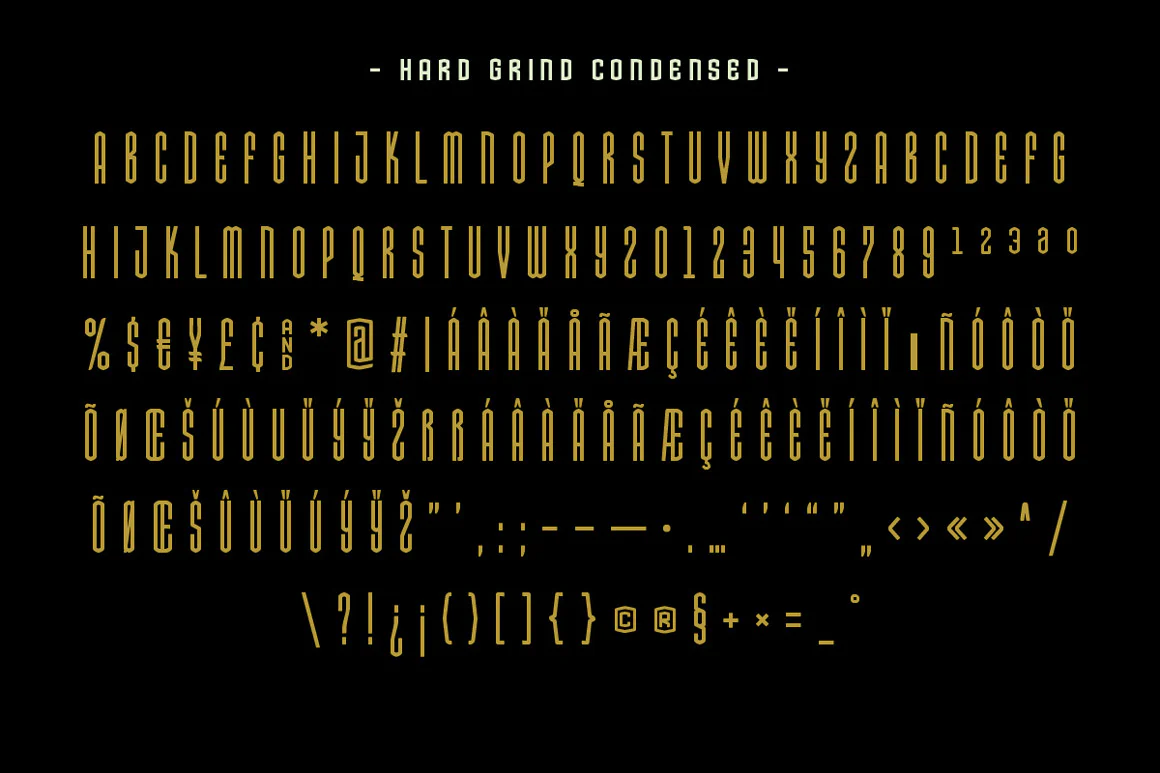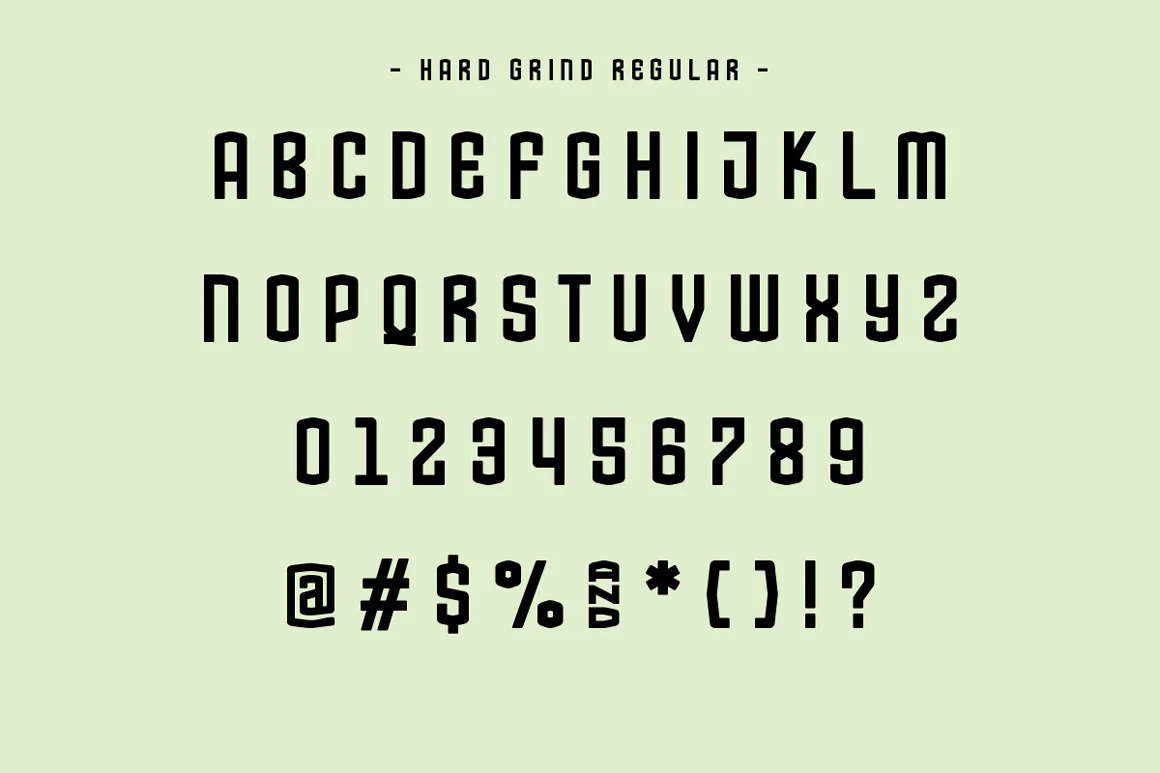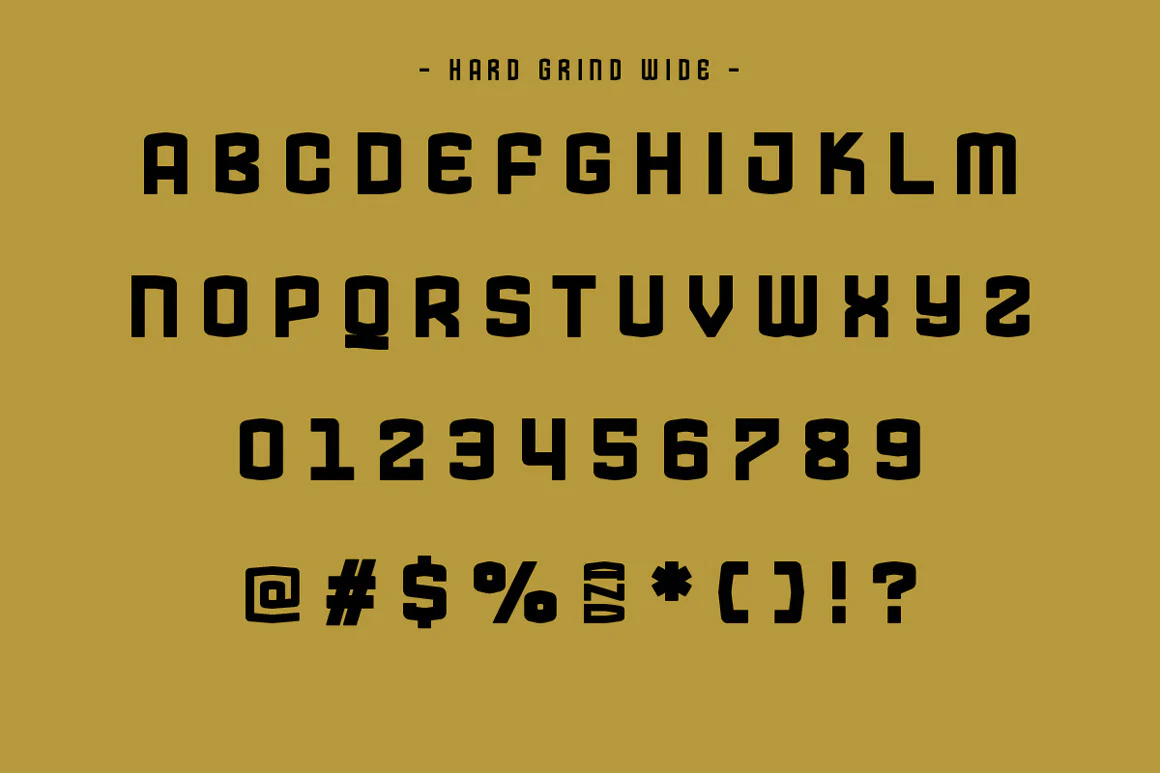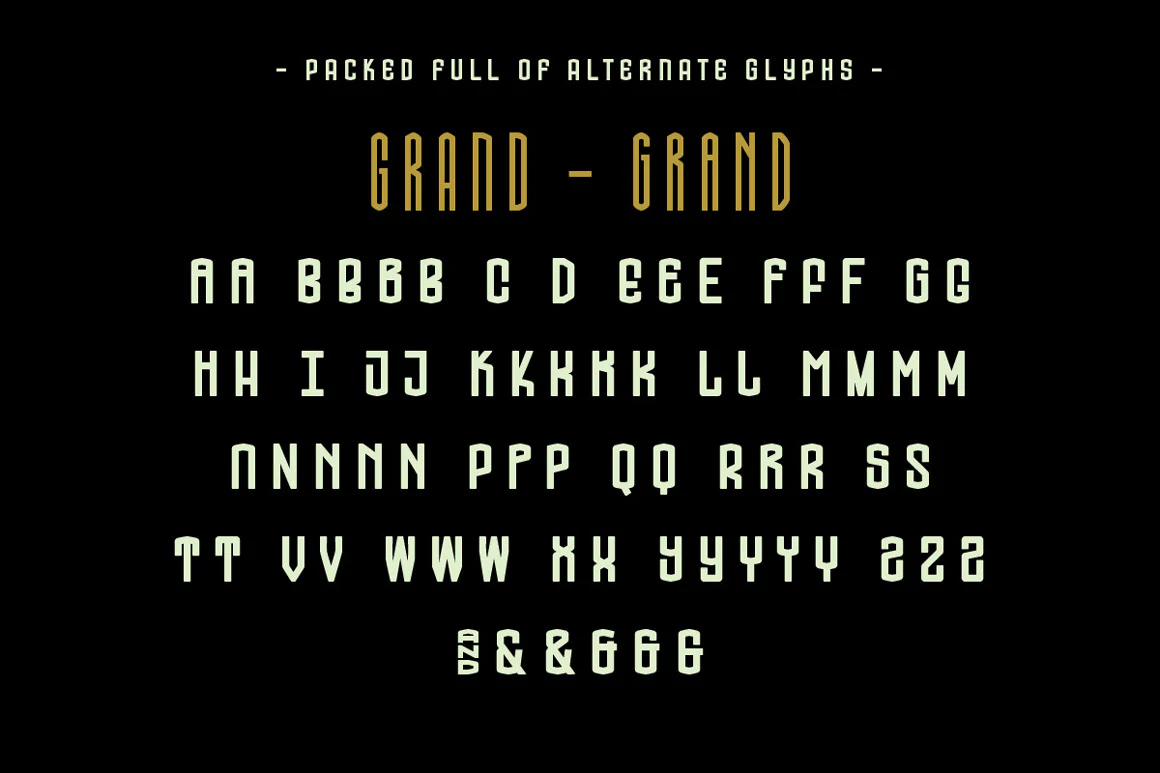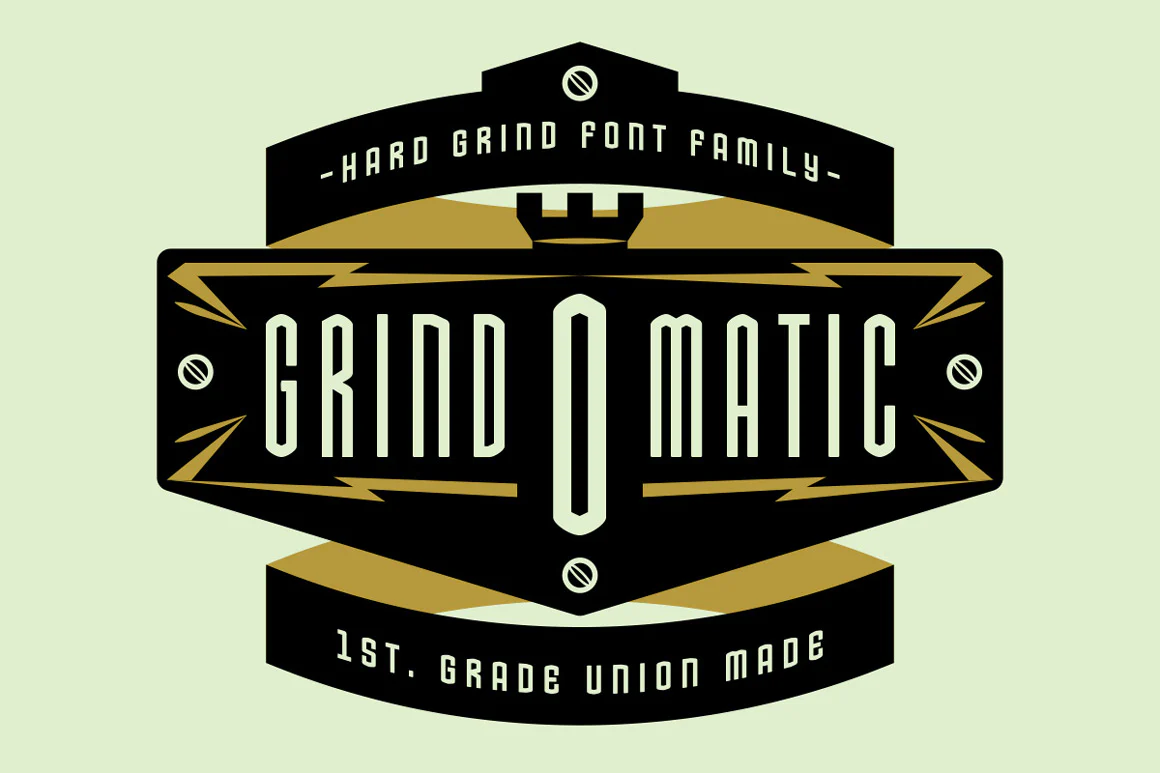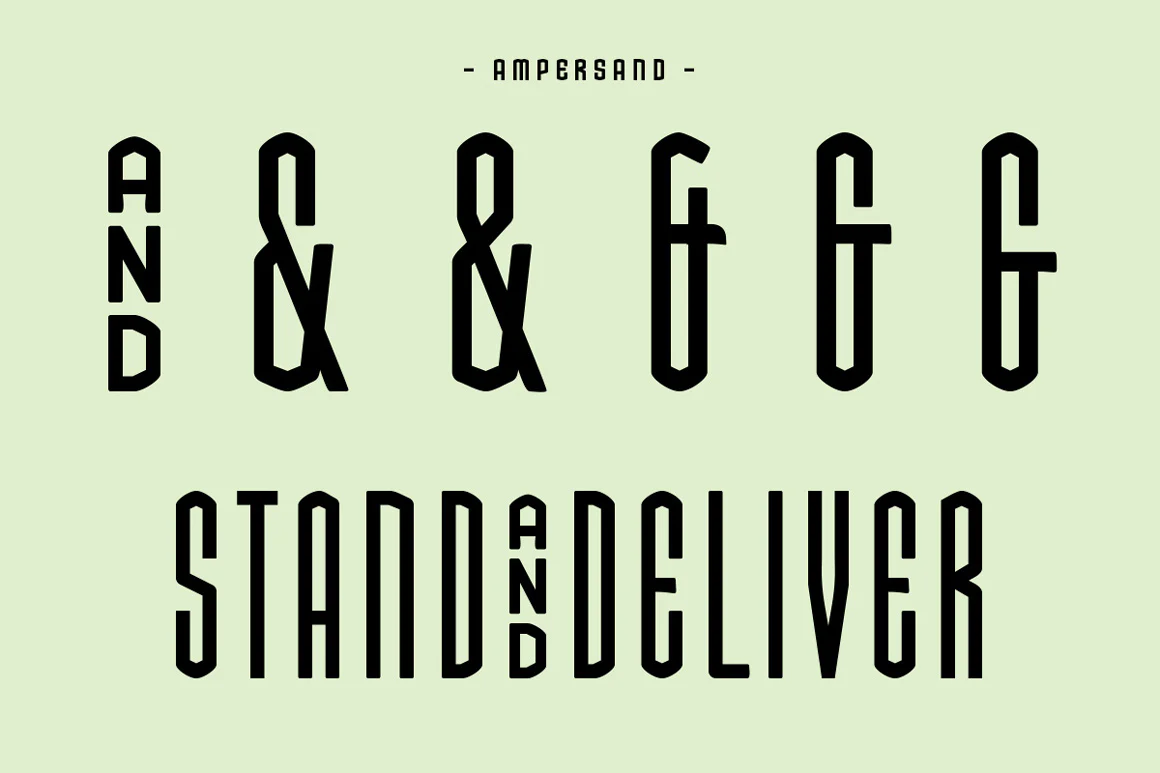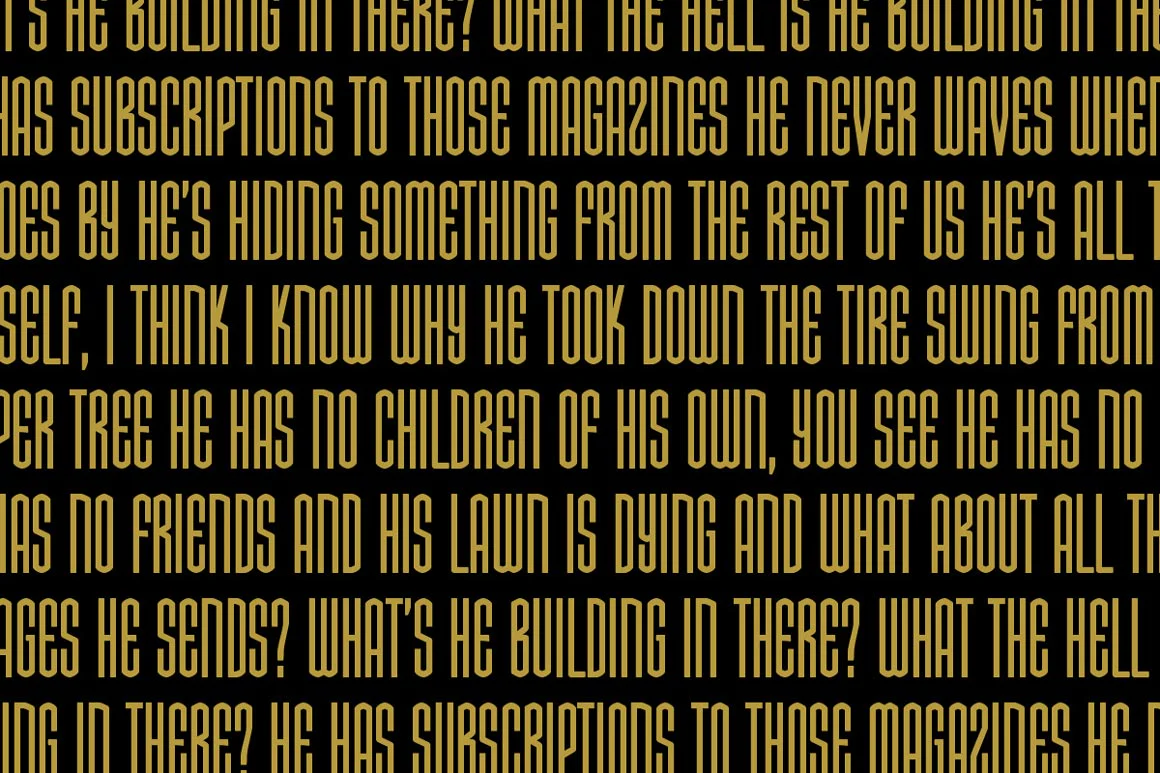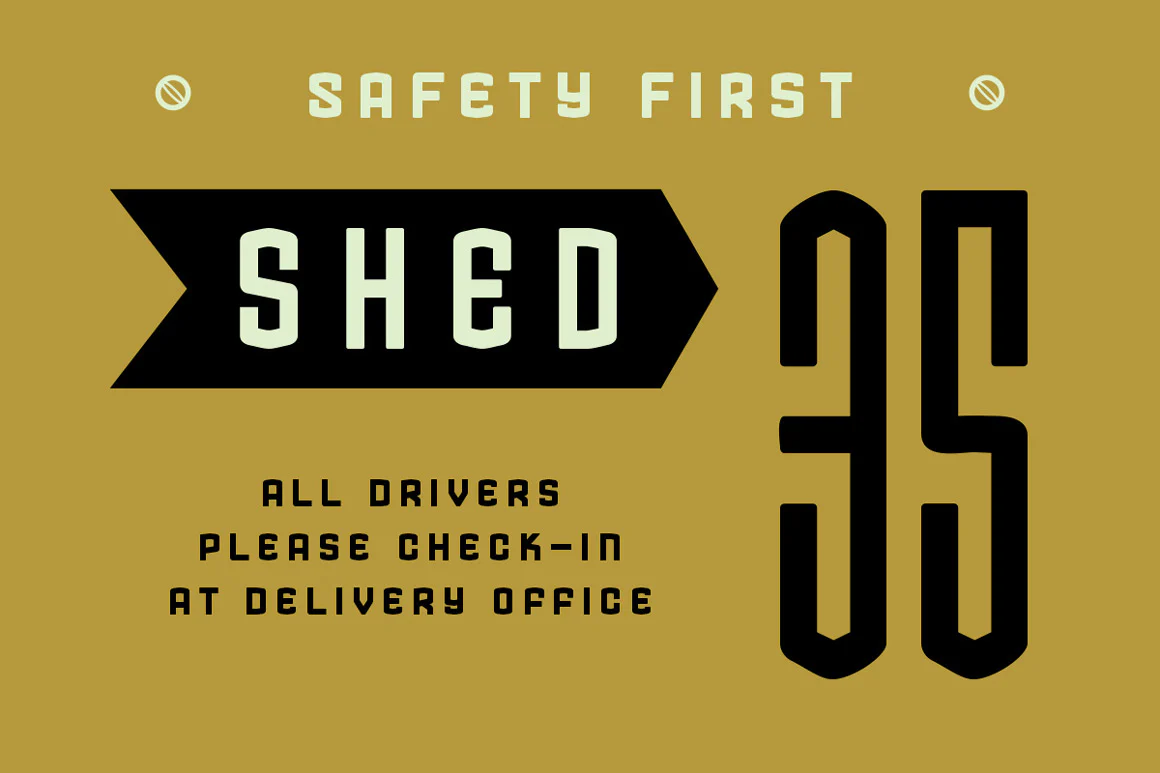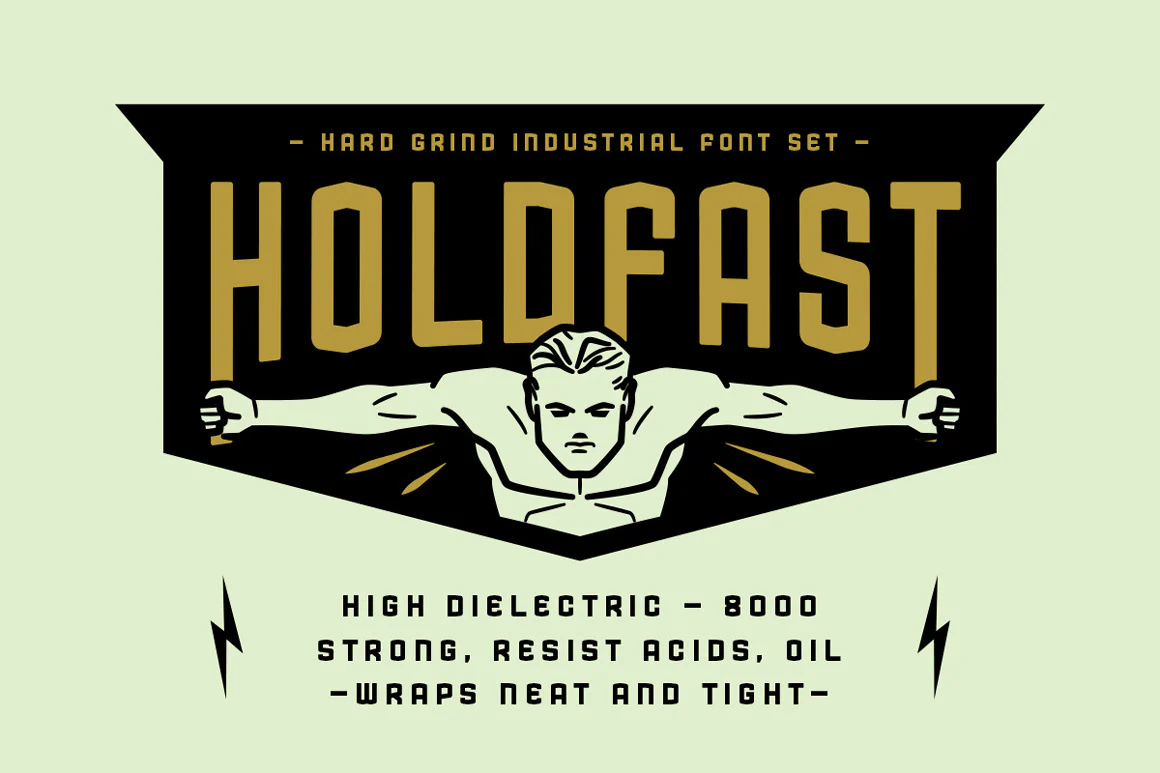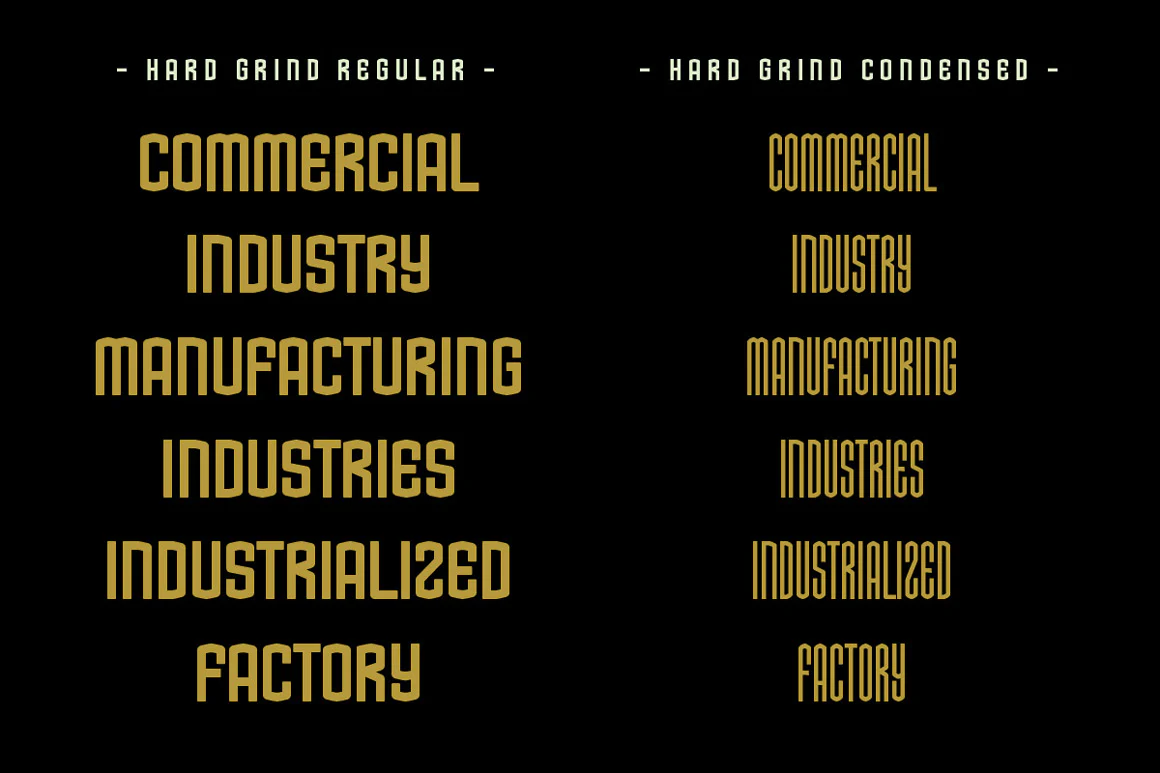
Hard Grind Industrial Font Set
The Story
Introducing Hard Grind, an industrial-style sans serif font set that encapsulates the functional, strength, and resilience of the industrial era.
Inspired by industrial machinery badges, nameplates, and manufacturer maker's marks, Hard Grind embodies the essence of factories, steelworks, and gritty urban landscapes. It draws upon the raw energy and materials that fuelled the industrial revolution, translating them into a powerful and versatile typeface set.
Characterized by its clean lines, sharp angles, and bold proportions, Hard Grind captures the aesthetic of industrial machinery and heavy equipment. Each letter is meticulously crafted to exude a sense of solidity and durability, making it a perfect choice for projects that require a strong and impactful visual presence.
Perfect for branding, Hard Grind is equally well-suited for editorial design, packaging, signage, and web interfaces. Its straightforward nature and legibility make it an excellent choice for conveying information with impact and clarity.
Available in a variety of  styles, including regular, condensed, and wide, Hard Grind offers designers the flexibility to create captivating compositions and establish a cohesive visual language across their projects.
Hard Grind is not just a typeface; it's an embodiment of the industrial era's ethos. It reflects the tireless effort and dedication required to build monumental structures, push technological boundaries, and shape the world we live in.